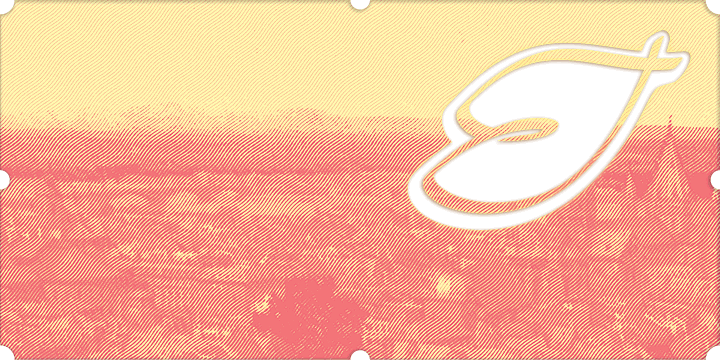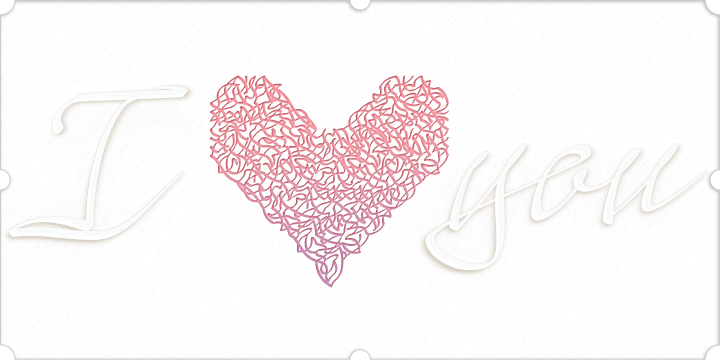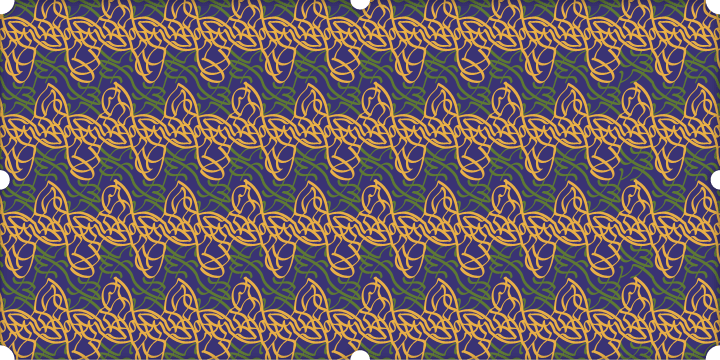
Mayence is the French name of Mainz, German city where Johannes Gutenberg was born. It\’s a manuscript font inspired in the author\’s calligraphy, with an angular structure, marked by a certain impulsiveness. Besides being a continuous-line font, Mayence…